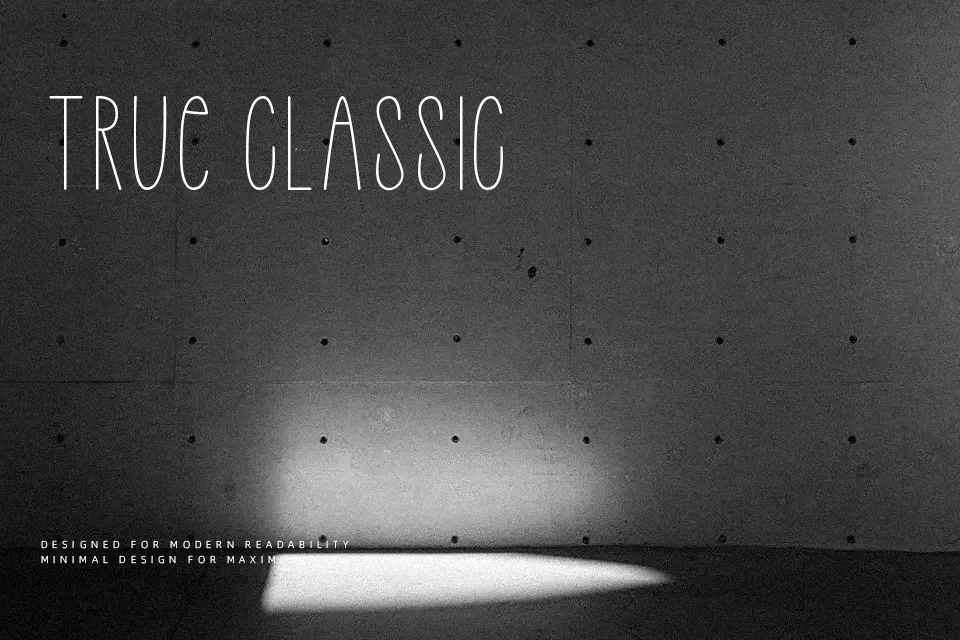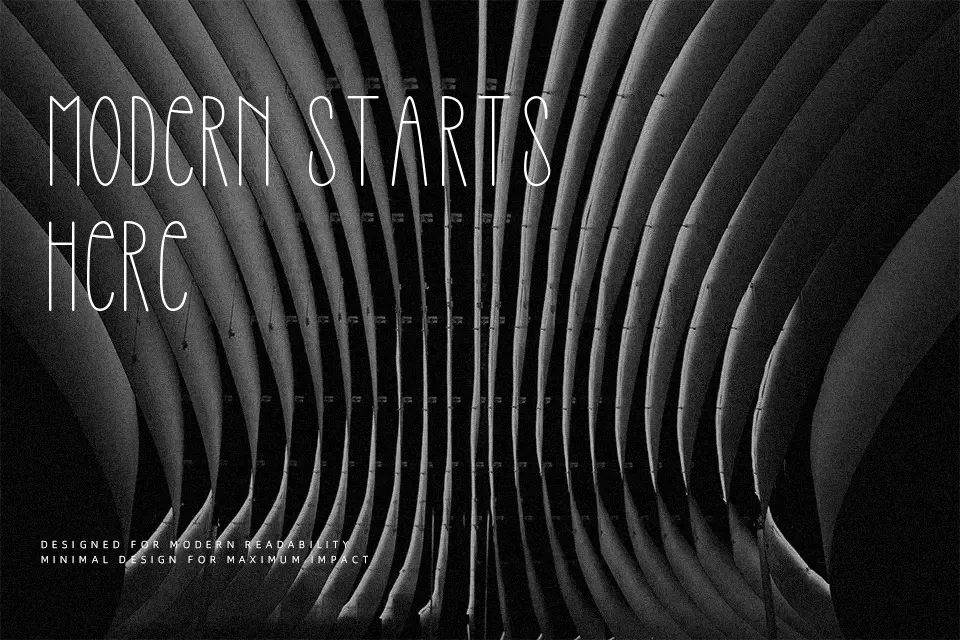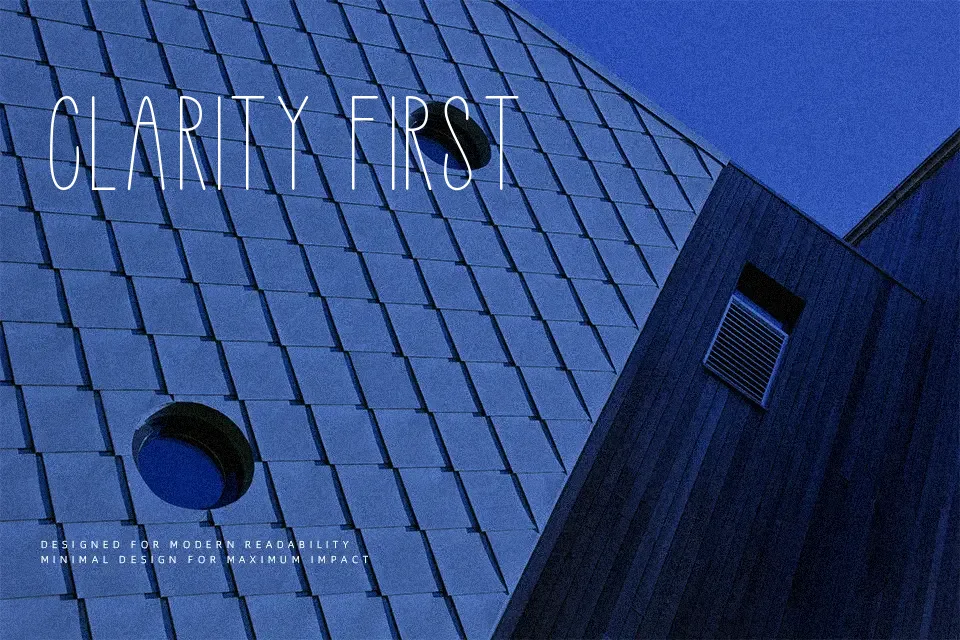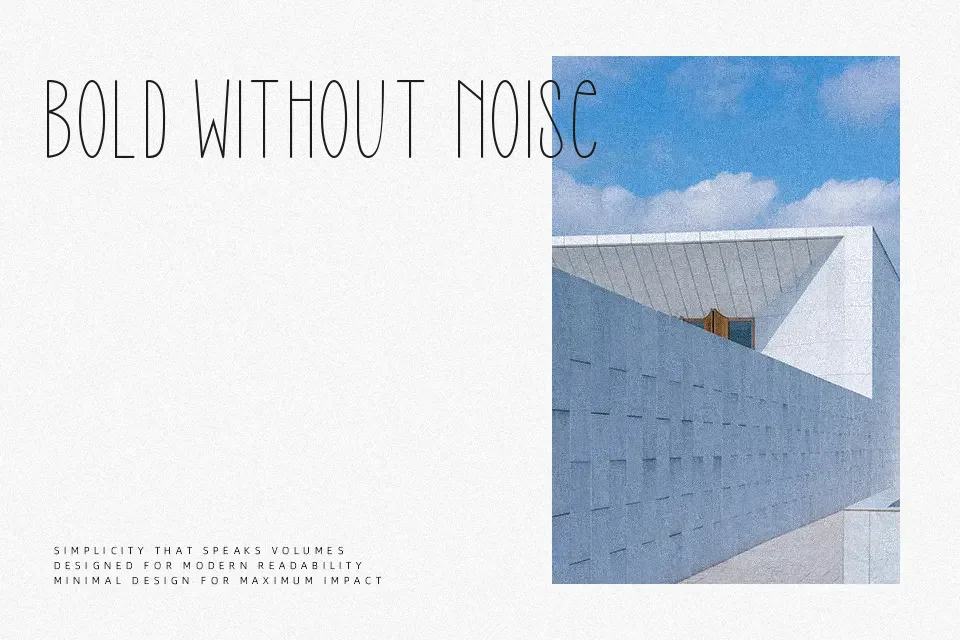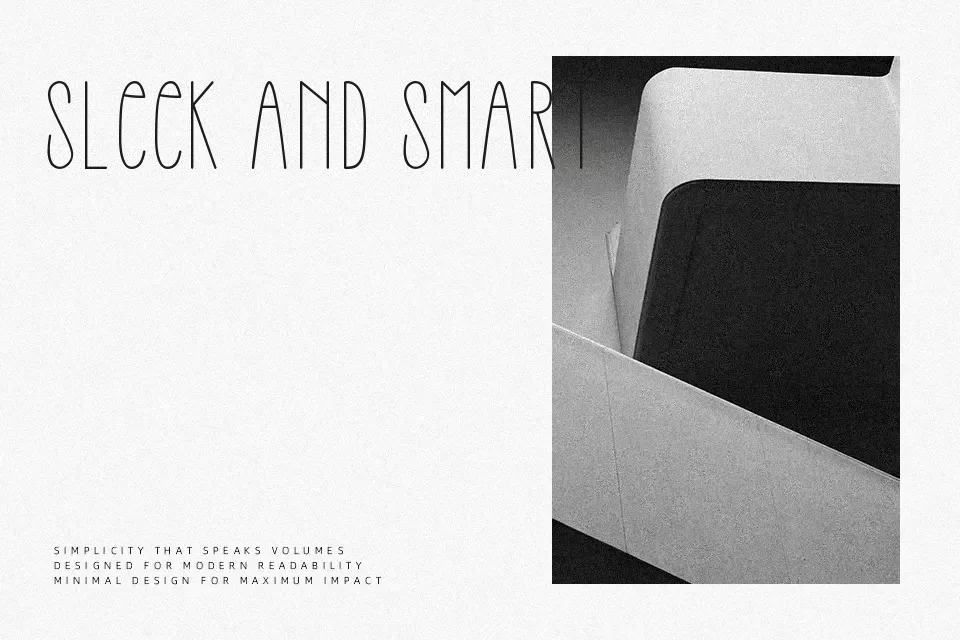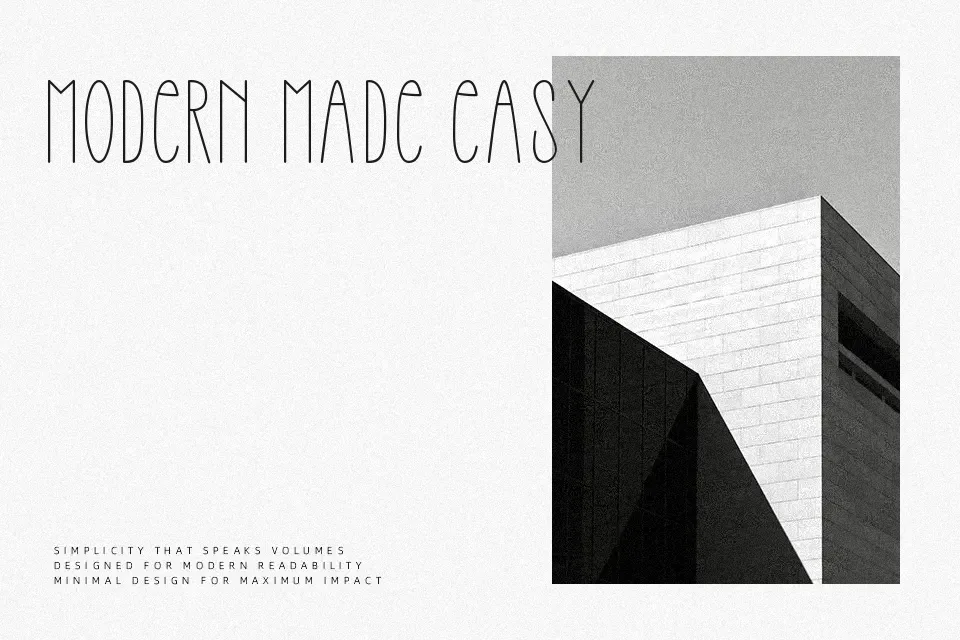
Bale Home Font
Bale Home is a slim, hand-drawn sans serif with monoline strokes, tall proportions, and generous vertical spacing that give text a clean, airy rhythm. The letters feel stylish yet relaxed, making it work well for lifestyle branding, blog headers, and social media quote graphics where you want a subtle handmade touch without sacrificing clarity. Its thin lines can lose impact at very small sizes or against busy backgrounds, so it performs best in larger headings and simple layouts. When used with enough contrast and space, it delivers a refined, contemporary voice; in dense copy or data-heavy interfaces, it quickly feels too light and fragile.
logo lockups for lifestyle brands
website hero banners and sliders
modern greeting cards and stationery
social media quotes and captions
long paragraph text and articles
formal corporate reports or documents
very small UI labels and captions
highly textured or cluttered backgrounds
Perfect for branding, headline, and logo, with a creative and decorative style.